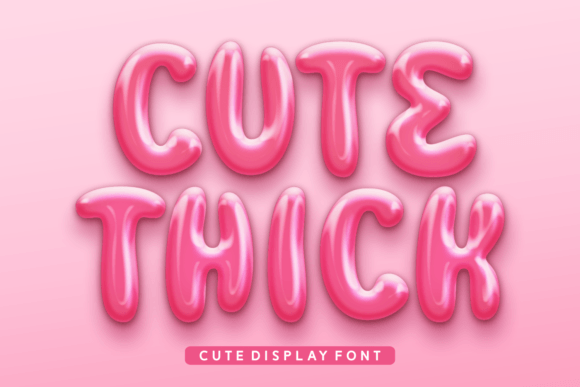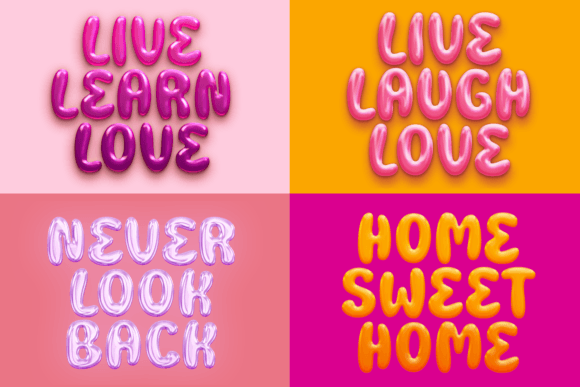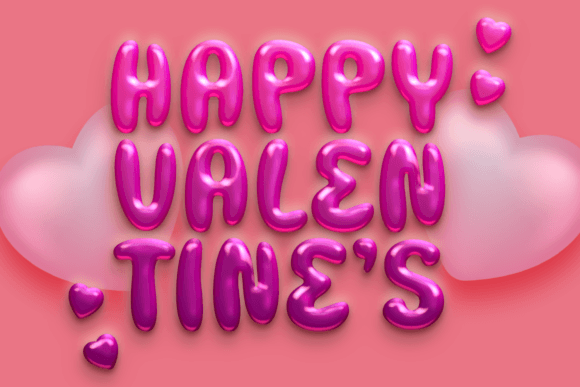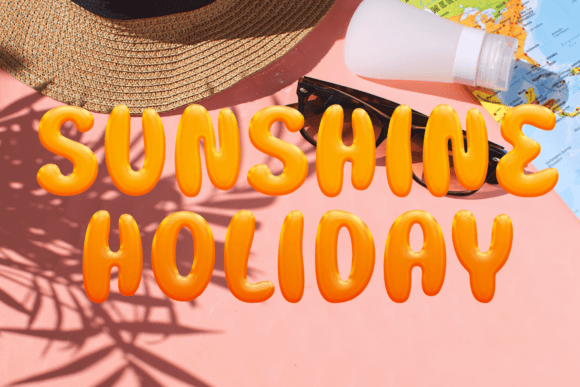
Cute Thick Font
About the Cute Thick Font
The wait is over! The incredible Cute Thick Font is now available for your design toolkit. Meet “Cute Thick,” the bubbly display font that’s as charming as a bunch of balloons! With its adorable and rounded letterforms, Cute Thick brings a playful and lighthearted vibe to your designs. Perfect for adding a touch of whimsy to birthday cards, party invitations, or any project that needs a dose of cuteness, this font is sure to lift spirits and spread joy. Embrace the sweetness of Cute Thick for a delightful and cheerful typographic experience!
Cute Thick’s playful energy makes it ideal for headlines, short taglines, and playful branding projects. It works exceptionally well in children’s book illustrations, packaging for sweet treats, and social media graphics where a friendly, approachable aesthetic is desired. However, its rounded forms and relatively large x-height make it less suitable for body text or UI elements requiring high readability.
Consider pairing Cute Thick with a clean sans-serif like Open Sans for a balanced contrast; the sans-serif provides readability while Cute Thick adds a playful touch. Alternatively, a delicate script font could add a layer of sophistication, tempering the font’s inherent playfulness. Avoid pairing it with overly heavy or geometric fonts, which may clash with its bubbly character.
The font’s overall personality is undeniably cheerful and friendly, making it a great choice for brands targeting a young, fun-loving audience.
Cute Thick Font Usage Examples
Cute Thick Font Example